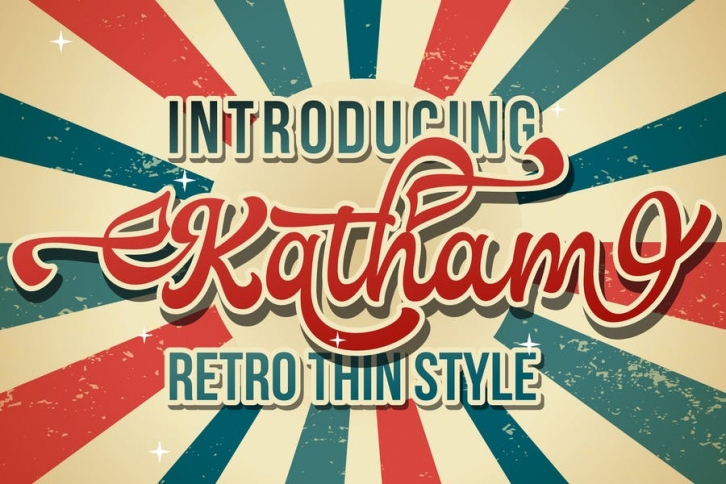
Katham is a retro style font with a stunning style that can make the most of your design projects. This font gives a touch of the retro style that the 60-70s was famous for.
- Standard glyphs
- Alternate ss01 – ss05
- Multilingual Accent